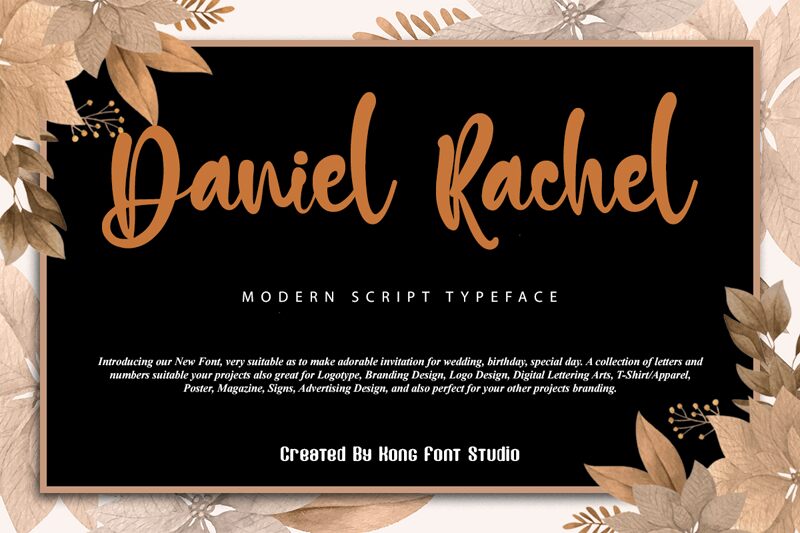
Daniel Rachel
Daniel Rachel is a modern script font designed by Kong Font, perfect for adding a touch of elegance to any project. Its semi-condensed width makes it easy to read even in smaller sizes, making it ideal for branding, invitations, and social media graphics. The sleek lines and flowing curves of this semi-bold typeface are perfect for adding a touch of sophistication to your next design project. Use Daniel Rachel on menus, business cards, or anything else that requires a touch of luxury. With its versatile style and elegant design, Daniel Rachel is sure to make your work stand out from the crowd.